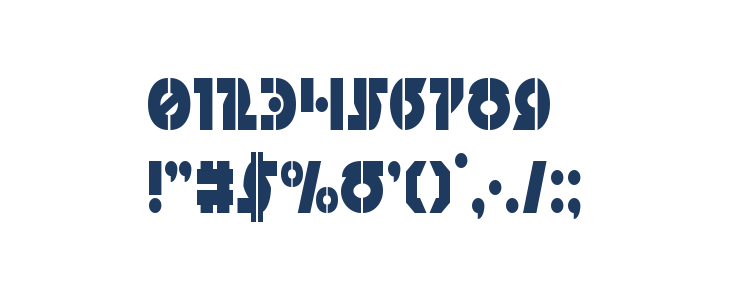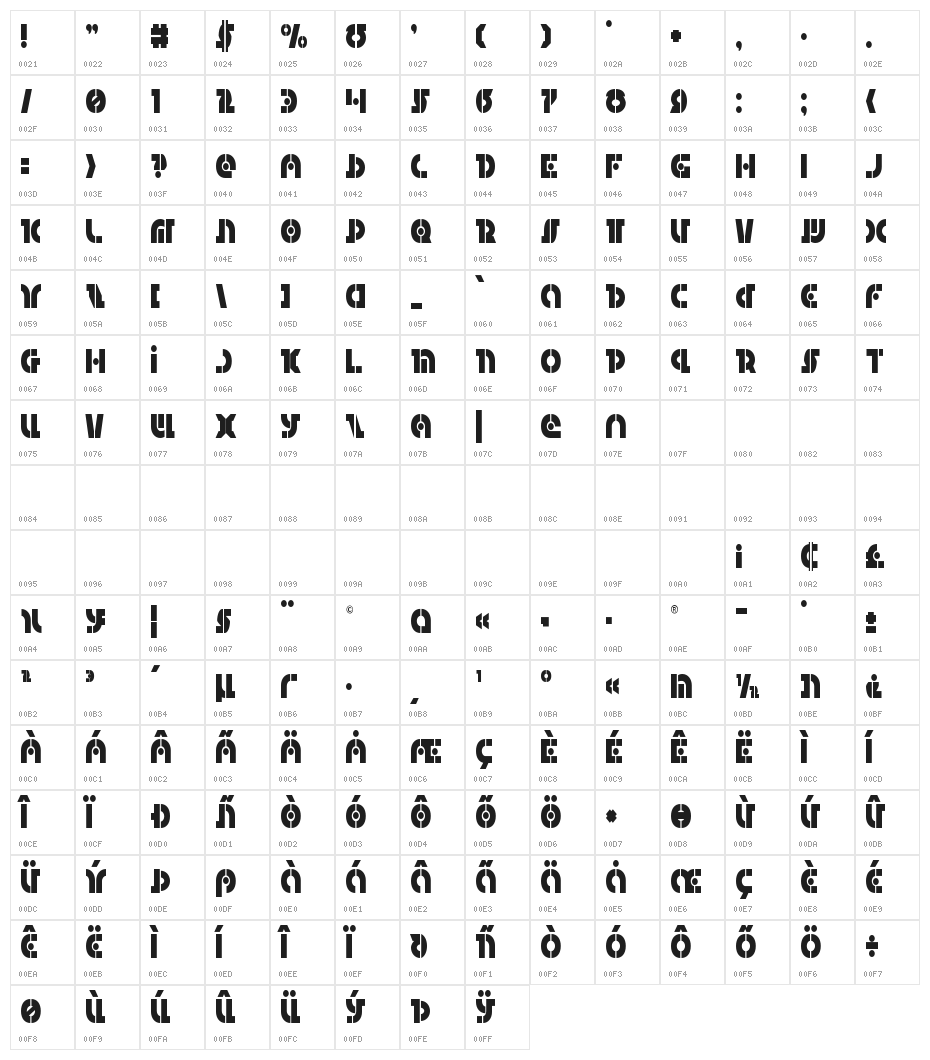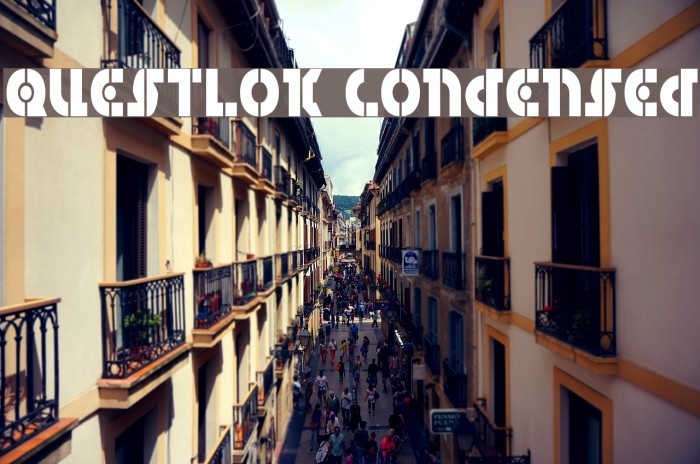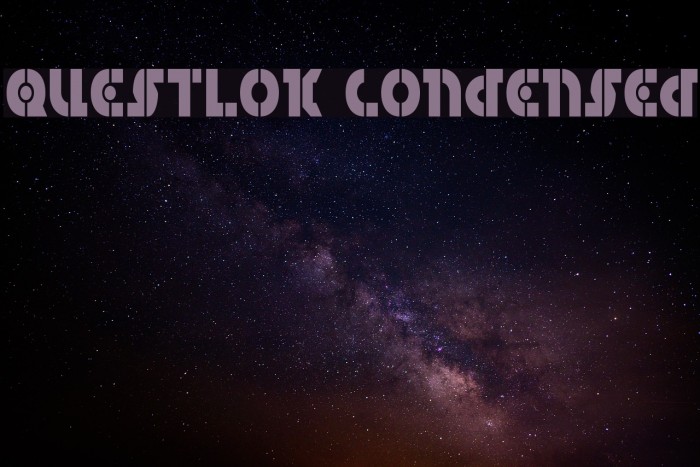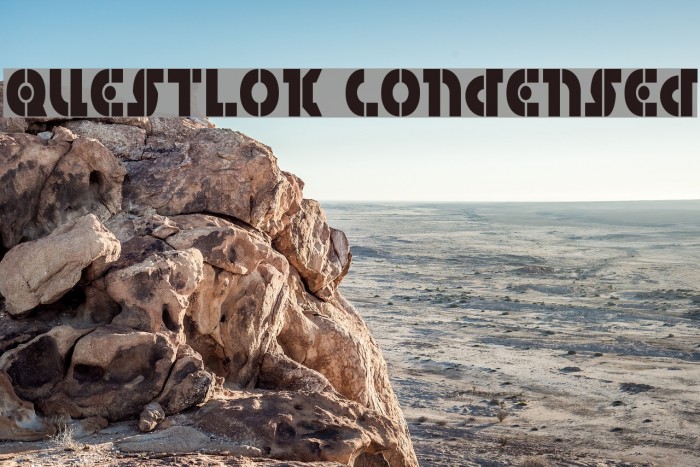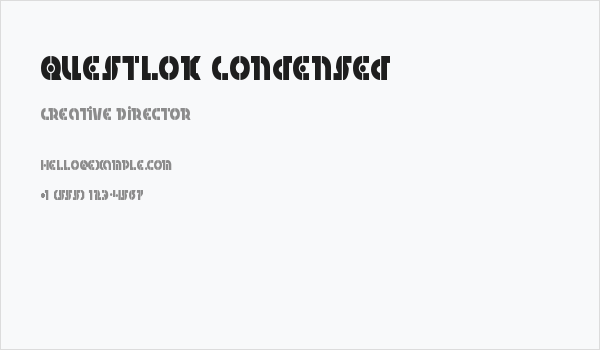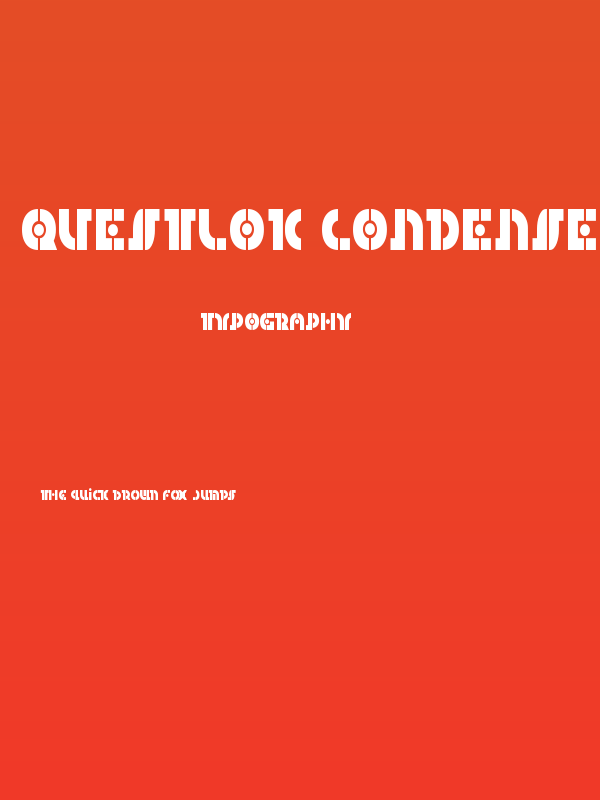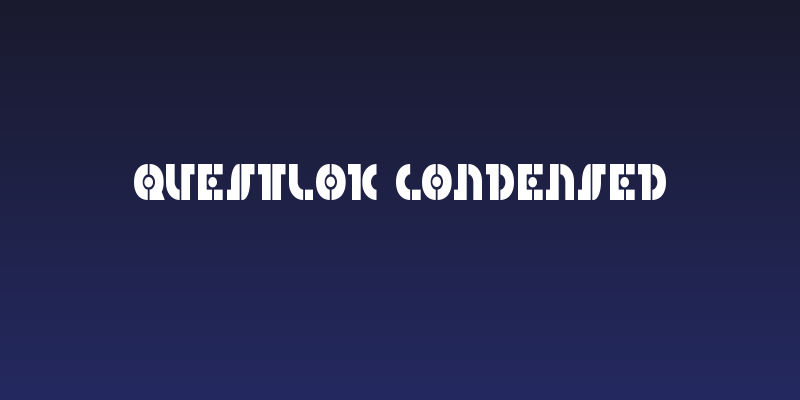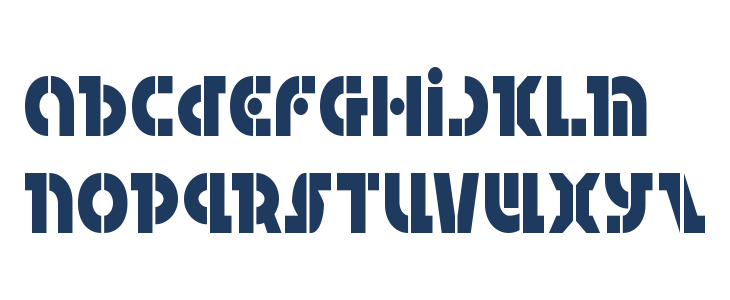
Questlok Condensed Font
Questlok Condensed Description
This font features a bold, geometric design with a distinct stencil-like appearance. Each character is composed of solid, blocky shapes with strategic cutouts, creating a modern and industrial aesthetic. The uppercase and lowercase letters maintain a consistent style, with sharp angles and clean lines. The numbers and special characters follow the same design principles, ensuring uniformity across the set. The condensed width of the characters allows for efficient use of space, making it ideal for impactful headlines and titles. The high contrast between the thick strokes and the negative space enhances readability and visual interest.